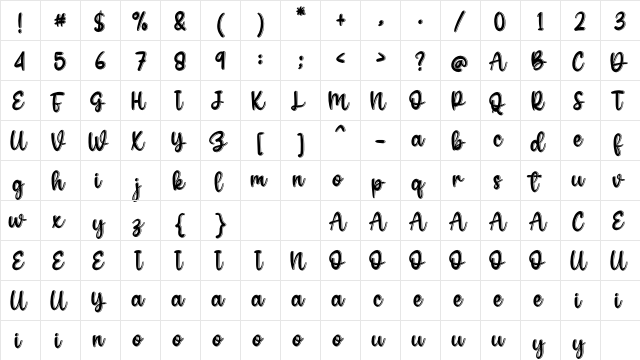
Honey Sheet Regular
Design Context for Honey Sheet Typeface
Honey Sheet is a composed and adaptable typeface that performs quietly and consistently across a wide range of design contexts.
Pro Tip: Use Honey Sheet in both headline and body roles to test its range before committing to a single application.